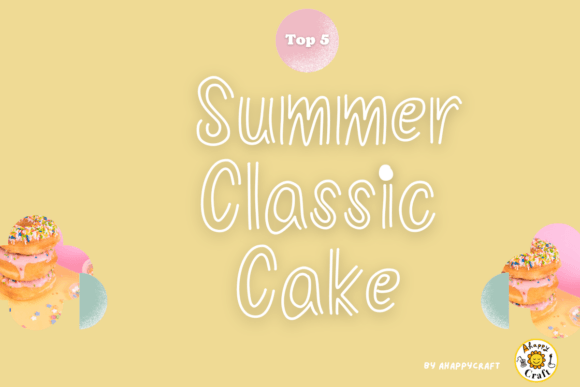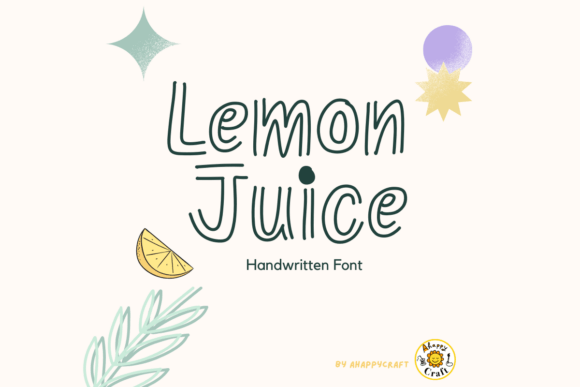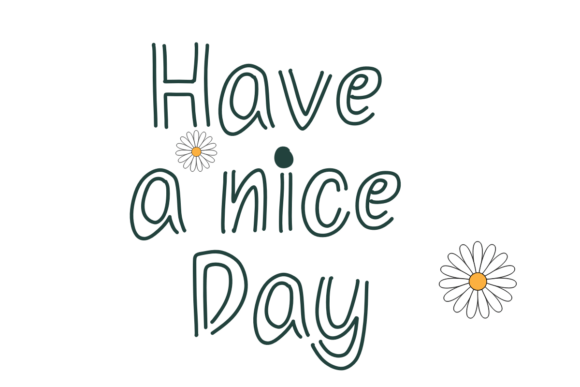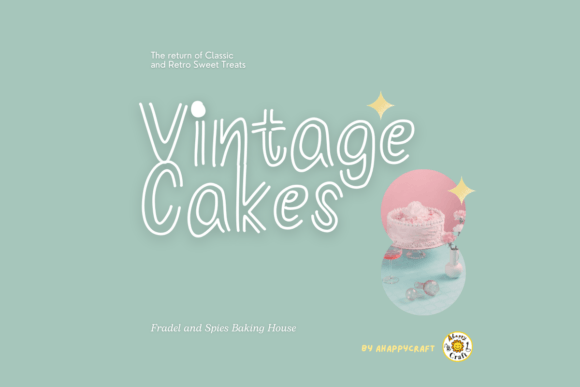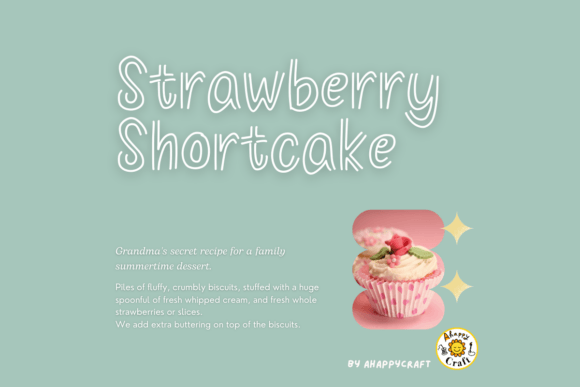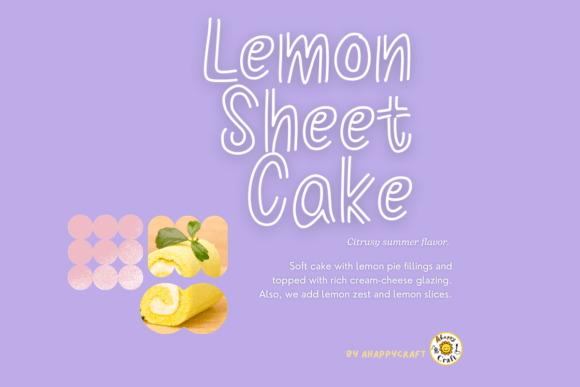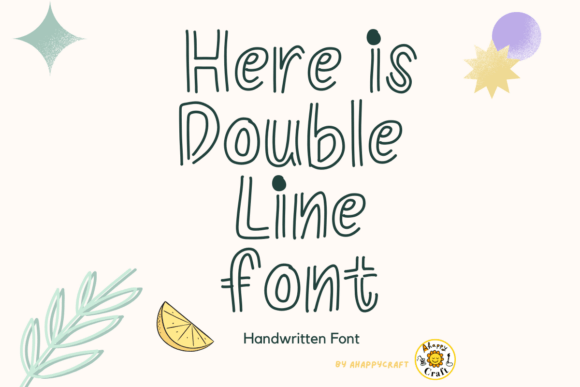
Cute Double Line Display Font: Adding a Touch of Whimsy to Your Designs
A cute double line display font is a very cute fun display font. It’s a young and fresh font that can add a touch of whimsy to any design project. Whether you’re a designer, crafter, or simply someone who loves to dabble in creative endeavors, this font is sure to delight. In this article, we’ll take a closer look at the characteristics of cute double line display fonts, their uses, and how to make the most of them in your designs.
What is a Double Line Font?
A double line font, also known as a double-lined or two-line font, is a type of font that features two parallel lines of text. The lines are usually of equal length and are spaced evenly apart, creating a unique and eye-catching effect. Double line fonts can be used for a variety of purposes, from display text to headings, and can add a touch of playfulness to any design.
Characteristics of Cute Double Line Display Fonts
Cute double line display fonts are characterized by their youthful and fresh appearance. They often feature rounded edges, soft curves, and a bold, yet delicate design. These fonts are perfect for designs that require a touch of whimsy, such as:
- Children’s party invitations
- Crafting and DIY project tutorials
- Blog headings and titles
- Packaging and branding for kid-friendly products
Uses of Cute Double Line Display Fonts
Cute double line display fonts are incredibly versatile and can be used in a variety of design projects. Here are some popular uses for these fonts:
- Headings and Titles: Double line fonts make great headings and titles, adding a touch of elegance and sophistication to any design.
- Display Text: Use double line fonts to create eye-catching display text, such as signs, posters, and flyers.
- Signs and Labels: Double line fonts are perfect for creating signs and labels for crafting and DIY projects.
- Social Media Graphics: Add a touch of whimsy to your social media graphics and posts with cute double line display fonts.
Tips for Using Cute Double Line Display Fonts
Here are some tips for using cute double line display fonts in your designs:
- Keep it Simple: Use simple, easy-to-read text to ensure that your message is clear and concise.
- Experiment with Colors: Try out different color combinations to add depth and interest to your design.
- Play with Spacing: Experiment with different spacing options to create a unique and eye-catching effect.
- Mix and Match: Combine cute double line display fonts with other fonts to create a unique and visually appealing design.
| Font Name | Double Line Font |
| Author | Ahappycraft |
Cute double line display fonts are a fun and creative way to add a touch of whimsy to your designs. With their youthful and fresh appearance, they’re perfect for a variety of design projects, from children’s party invitations to social media graphics. By following the tips outlined in this article, you can make the most of cute double line display fonts and create unique and visually appealing designs that are sure to delight.